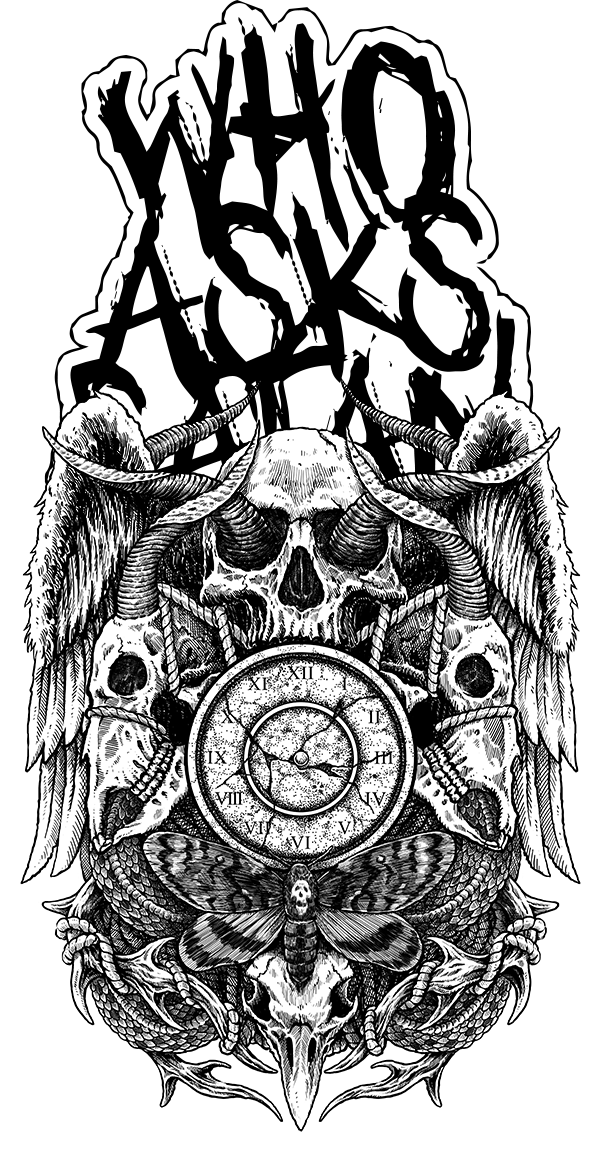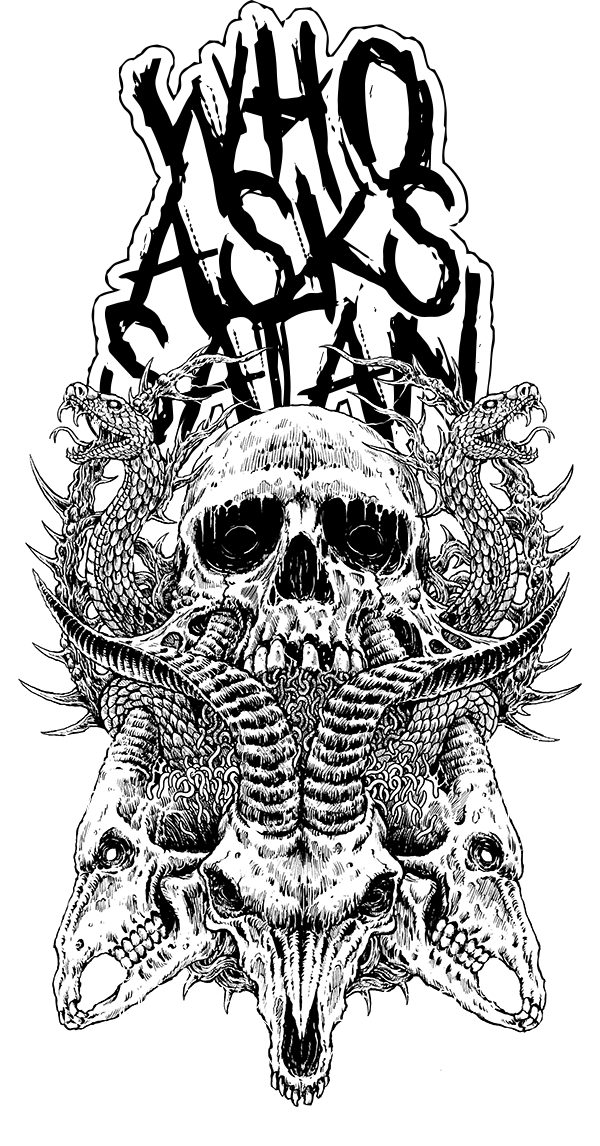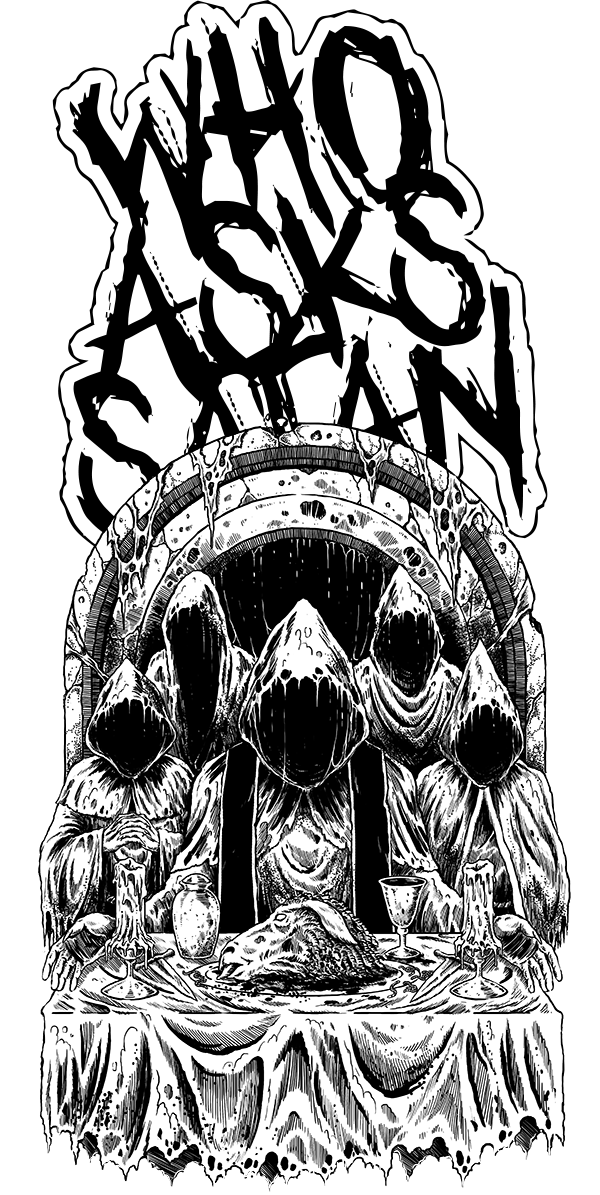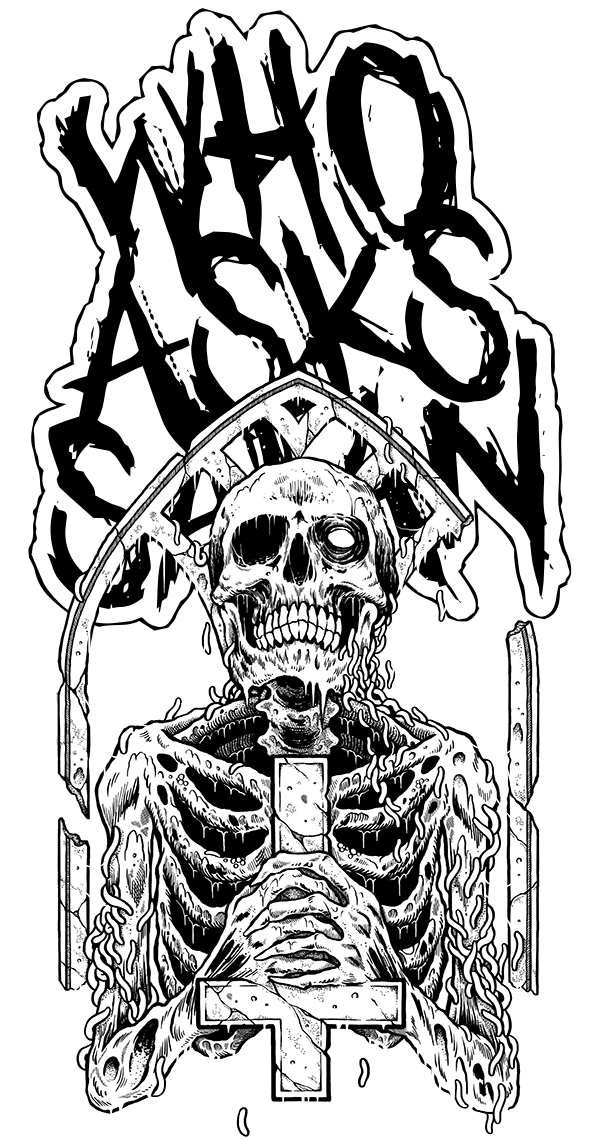
Lowercase: Same as uppercase
Numbers: Yes
Symbols: Limited, view image below to see available characters
Theme: Horror, Trash, death metal, grindcore